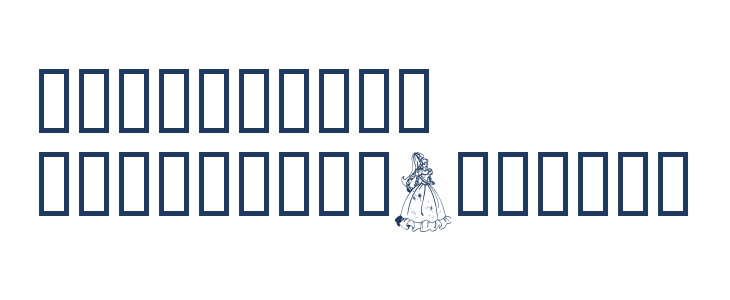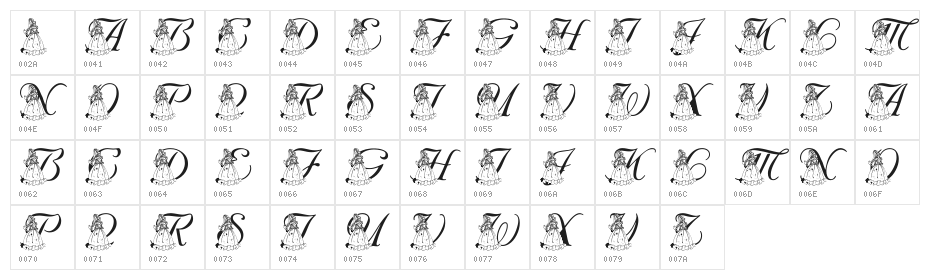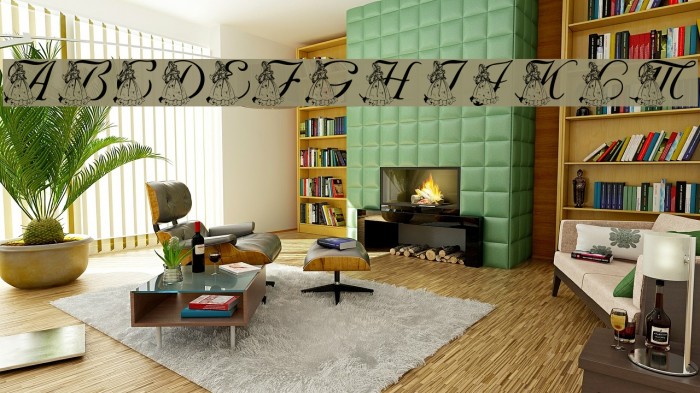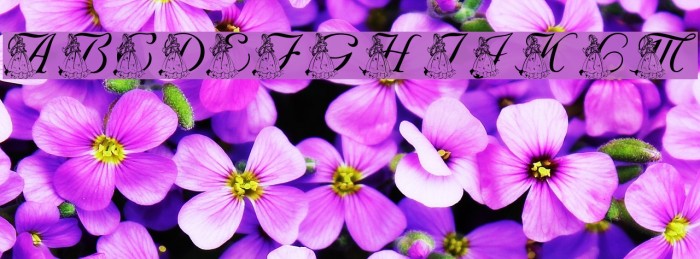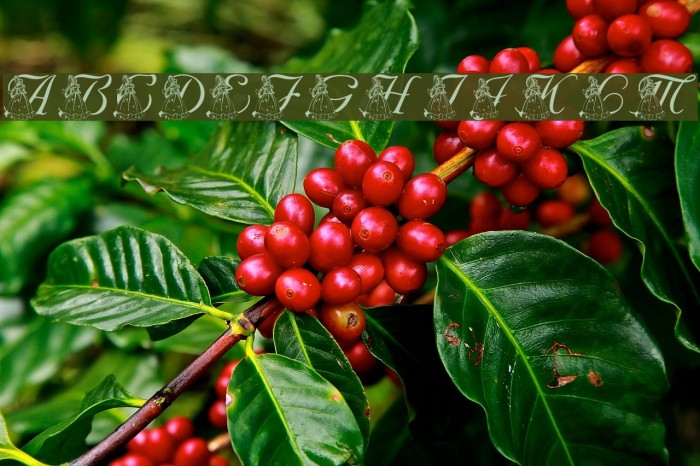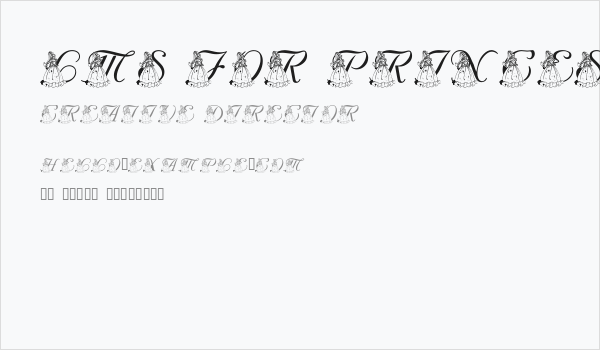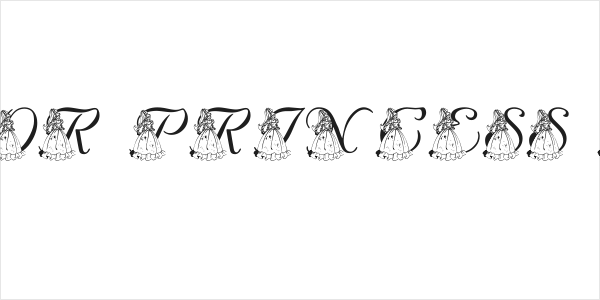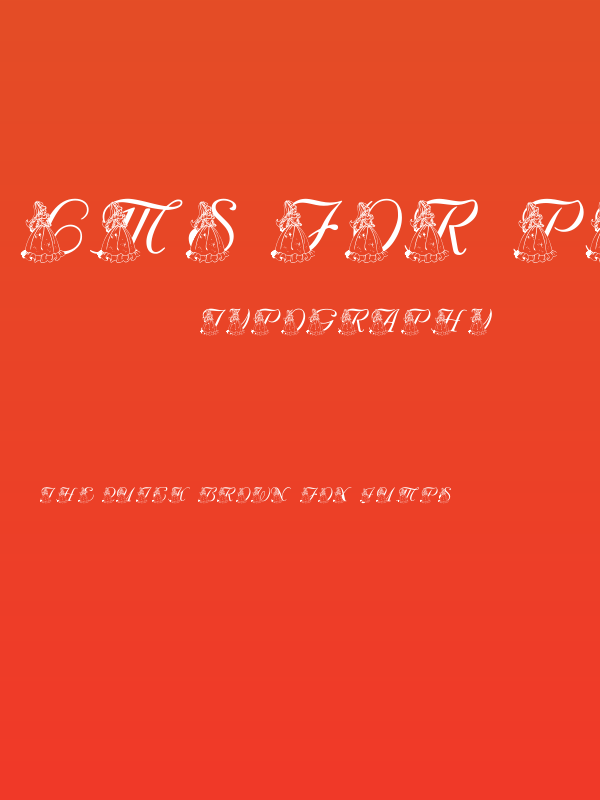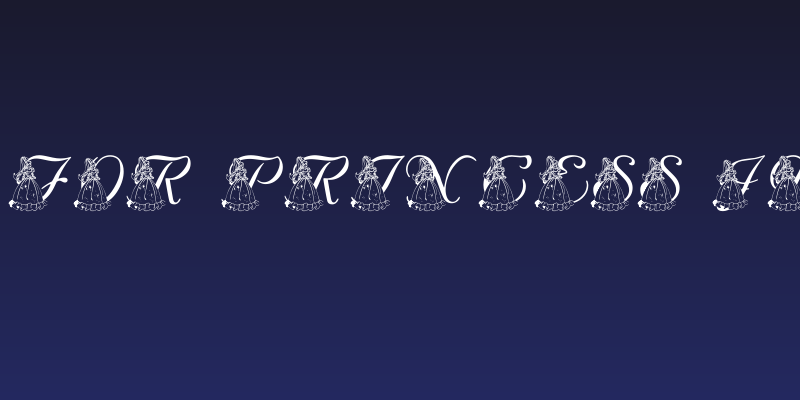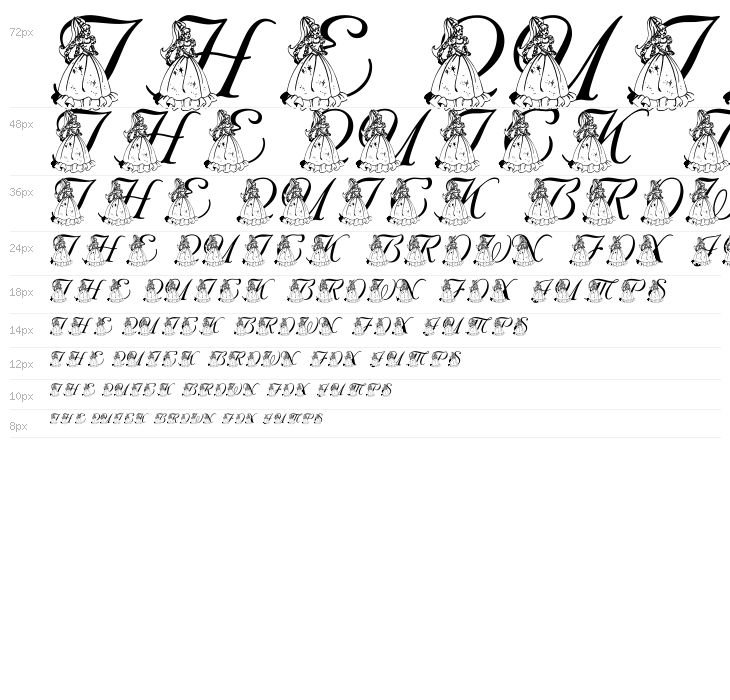
LMS For Princess Julie Font
LMS For Princess Julie Description
This decorative font features an elegant and whimsical design, incorporating princess-themed illustrations alongside each letter. The uppercase letters are adorned with intricate drawings of a princess, adding a fairy-tale charm to the typography. The style is highly ornamental, making it ideal for projects that require a touch of fantasy and elegance. The font does not include lowercase letters, numbers, or special characters, focusing solely on the uppercase alphabet. The artistic embellishments make it suitable for creative and themed designs.
| Use Case | Logos, Headlines |
| Proposed Projects | Ideal for children's book covers, fairy-tale themed invitations, and decorative posters. |